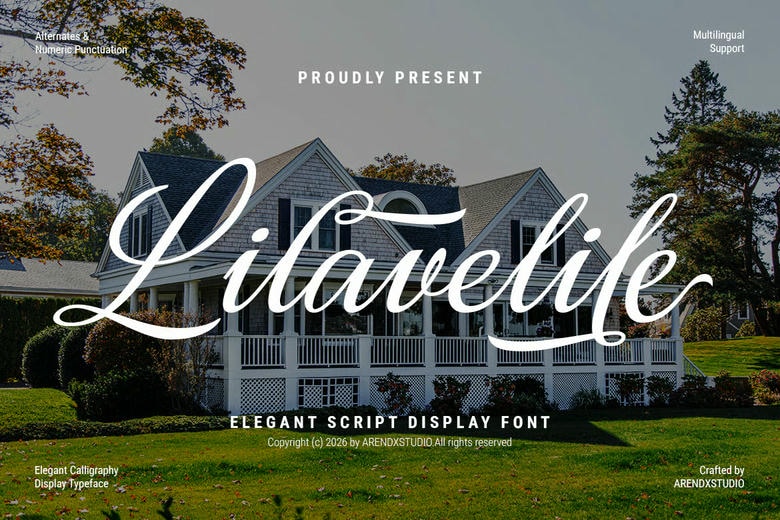
Lilavelle Font
Lilavelle is an elegant script display font with graceful strokes, stylish letterforms, and long, beautiful swashes. Its luxurious calligraphic style adds a refined, timeless touch to branding, wedding invitations, beauty products, fashion, logos, packaging, stationery, and other high-end creative projects.
Lilavelle Calligraphy Script Font